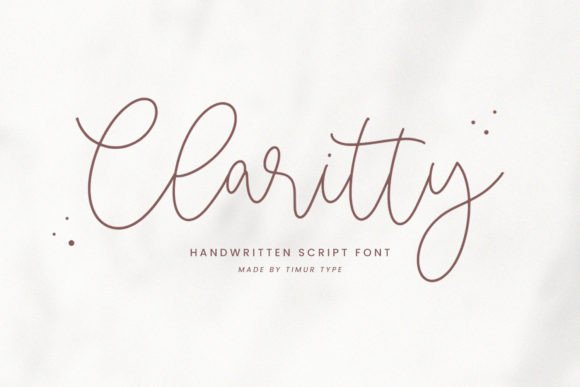
Introducing Claritty Font, the Enchanting Handwritten Masterpiece:
In a world saturated with digital monotony, Claritty Font emerges as a breath of fresh air, a font so captivating it transforms your designs into exquisite works of art. Inspired by the delicate finesse of handwritten notes, Claritty is a script font that speaks to the heart.
With its graceful curves and elegant strokes, Claritty Font dances across your screen, leaving a trail of visual delight. Each letter is a testament to the beauty of human expression, inviting you to infuse your creative endeavors with a touch of warmth and charm.
Picture this: a wedding invitation adorned with Claritty's romantic flair. The letters intertwine like vines, cradling the names of the bride and groom in a loving embrace. Or envision a greeting card, its message penned in Claritty's graceful script, conveying heartfelt sentiments with an air of timeless elegance.
But Claritty's versatility extends beyond formal occasions. Its playful nature lends itself effortlessly to casual settings as well, effortlessly transforming social media posts, blog entries, and digital designs into captivating visual experiences.
With Claritty Font as your creative companion, you'll discover a newfound joy in crafting designs that resonate with your audience. Its intuitive flow and natural charm will seamlessly elevate your projects, captivating your audience with every stroke.
With Claritty Font, you'll leave an indelible mark on the hearts of your readers, forging an emotional connection that transcends words. Let your designs bloom with the beauty of genuine expression. Embrace Claritty Font today and embark on a creative journey where each project becomes a masterpiece.